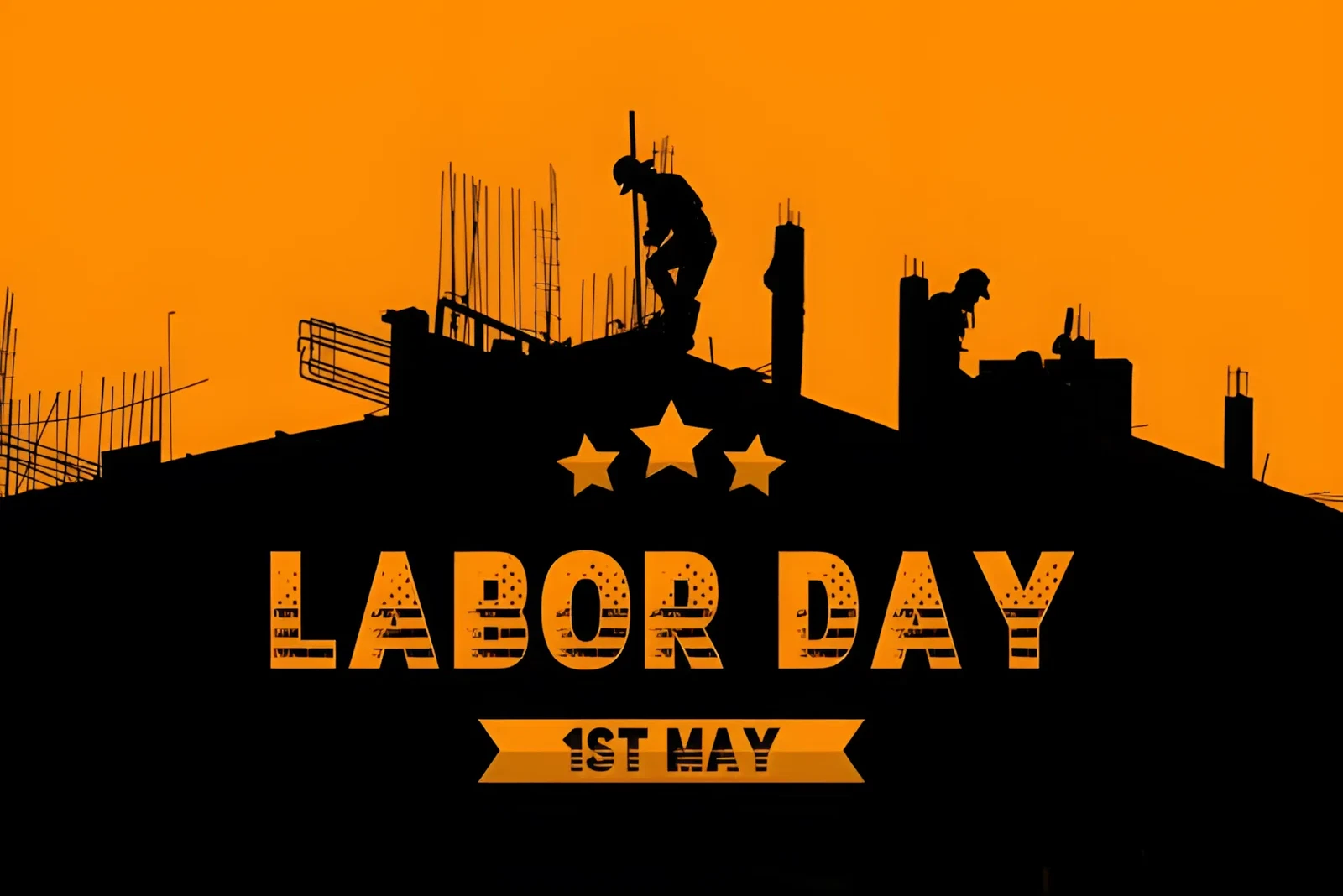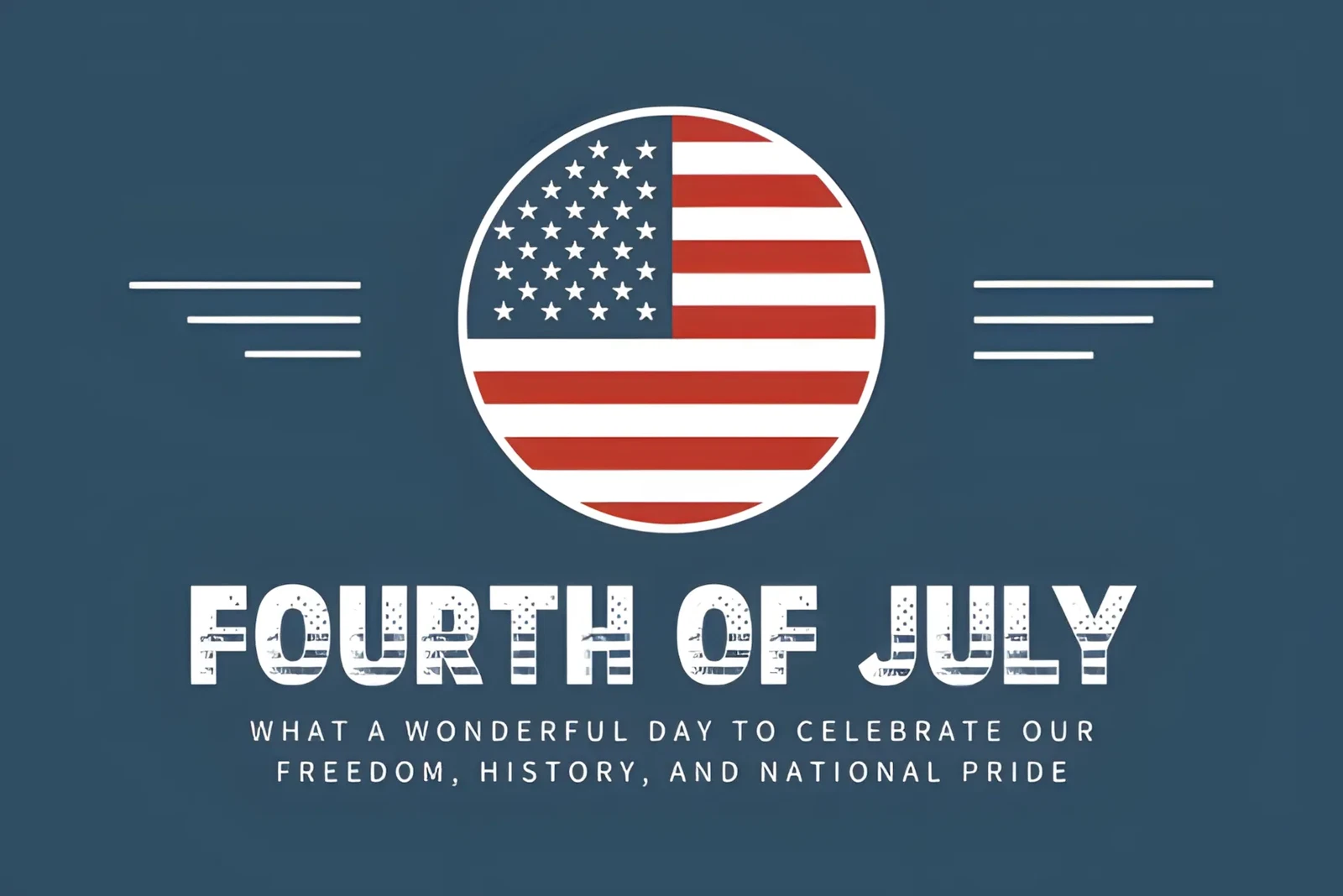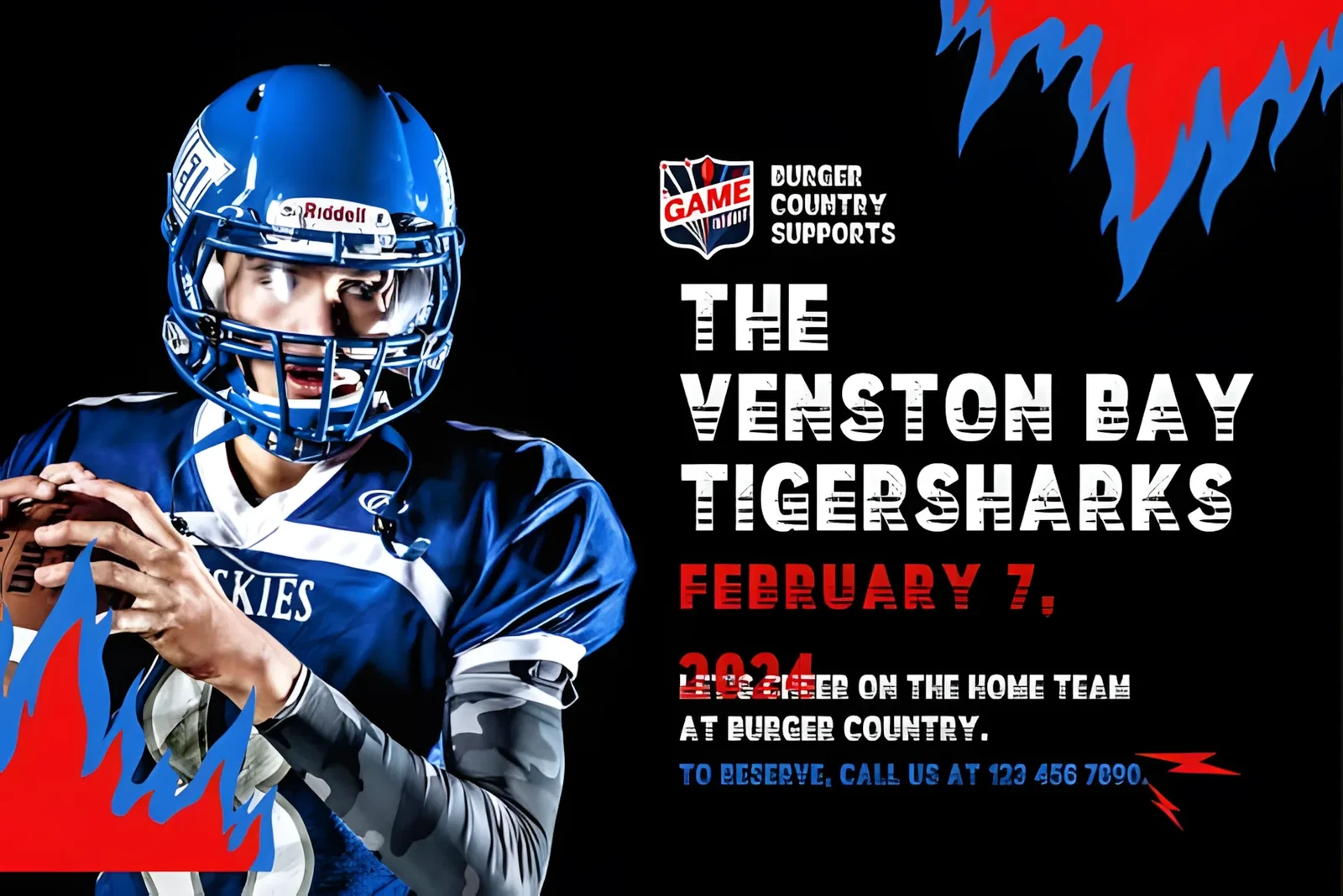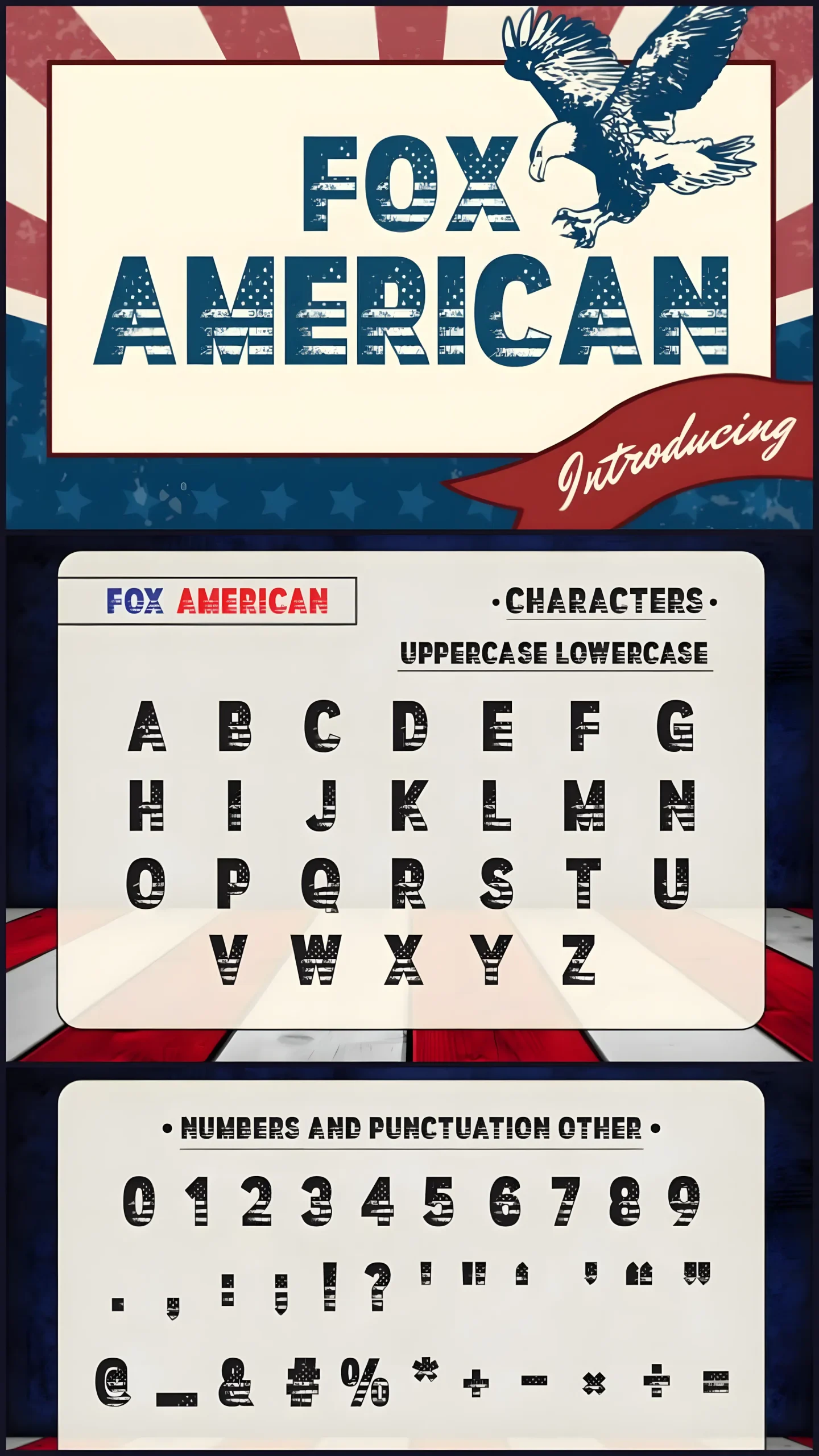
Fonts built around national identity often fall into predictable patterns. Some feel too decorative, others too generic to make a real impression. Fox American Font finds a strong middle ground. It is a decorative display typeface that clearly draws inspiration from American culture and symbolism while remaining practical for real design work.
This font was created to support projects that celebrate American history, national pride, and important public events. It brings a bold visual presence that works especially well in headlines, banners, and signage.
Visual Style and First Impression
Fox American Font immediately communicates strength and identity. The letterforms are bold and textured, featuring a visual style inspired by the American flag motif. This gives the font a sense of authenticity and heritage rather than a purely decorative look.
Despite its strong character, the font remains readable. The shapes are solid and well-defined, which makes it effective in both digital and print environments. The overall impression is confident, patriotic, and visually impactful without feeling cluttered.
This balance between decoration and clarity is what makes the font usable beyond just one-off designs.
Designed for American Culture and Events
Fox American Font is clearly built for projects connected to American themes. It fits naturally into designs related to:
- Independence Day
- Fourth of July celebrations
- Veterans Day
- Memorial Day
- national and community events
The font reinforces themes of freedom, unity, and national pride. It does not rely on excessive symbols or illustrations; instead, it uses typography itself to communicate identity.
Practical Design Applications
Headlines, Banners, and Signage
One of the strongest use cases for Fox American Font is large-format design. Headlines set in this font feel bold and authoritative, making them ideal for banners, posters, and signage.
The font performs especially well when visibility matters. Its strong letterforms remain clear from a distance, which is important for public spaces, outdoor events, and promotional displays.
Apparel and Merchandise
Fox American Font works well in apparel and merchandise design. Patriotic t-shirts, hoodies, hats, and other items benefit from typography that feels solid and symbolic.
The textured look of the letters translates well to print, embroidery, and vinyl applications. This makes the font suitable for print-on-demand products and themed collections tied to national holidays.
Branding and Promotional Graphics
In branding and promotional materials, Fox American Font adds character without overwhelming the design. It can be used in:
- campaign headlines
- cover designs
- promotional posters
- themed branding assets
When paired with a clean supporting font, it creates strong visual hierarchy and clear messaging.
Readability and Font Behavior
Although Fox American Font is a decorative display typeface, readability remains one of its strengths. The spacing and proportions allow the text to remain legible at different sizes.
It works best for:
- titles
- headlines
- short phrases
- featured text
For longer text blocks, pairing it with a neutral sans-serif or serif font helps maintain balance and readability.
- digital graphics
- printed layouts
- web visuals
The font is also compatible with cutting machines such as Cricut and Silhouette, making it suitable for:
- vinyl lettering
- decals
- signage
- craft-based projects
It supports a wide range of creative workflows, from professional design to DIY crafting.
Emotional Tone and Message
The emotional tone of Fox American Font is rooted in pride and identity. It feels strong without being aggressive and traditional without appearing outdated.
This makes it suitable not only for major national holidays but also for educational projects, historical themes, and community-focused designs. The font supports messages meant to honor, celebrate, or recognize rather than simply decorate.
It is not intended for long-form reading, but as a display font, it performs exactly as expected.
Fox American Font is a bold decorative typeface built around American identity and national pride. It combines strong visual character with practical readability, making it suitable for a wide range of themed projects.
For designers and creators looking for a font that delivers impact, clarity, and patriotic tone, Fox American Font offers a reliable and expressive solution. Used thoughtfully, it enhances designs while keeping the message clear and confident.